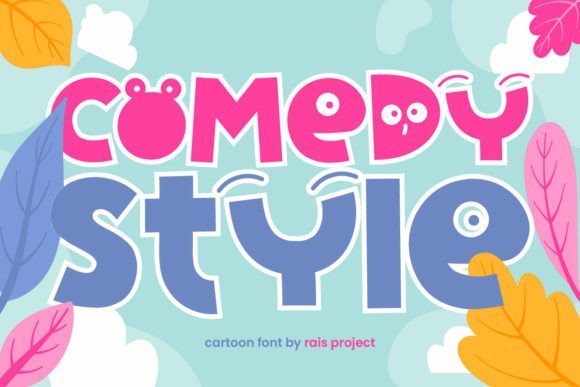
Laugh Your Way to Design Success
We’ve all been there – staring at a blank page, trying to come up with the perfect design concept. But then, something clicks, and a silly idea pops into your head. You start imagining a font that looks like it was created by a mischievous cartoon character, complete with winking eyes and goofy grins. That’s when you know you’re onto something special.
Introducing Comedy Style Font, a hilarious display font that brings a touch of whimsy to any design. With a unique character in each letter, this font is guaranteed to add a lighthearted and playful feel to your work. Whether you’re creating a comic strip, designing a greeting card, or developing a brand identity, Comedy Style Font is the perfect tool to inject some humor and personality into your designs.
Comedy Style Font Key Features
- Unique Characteristics: Features a playful, hand-drawn design with exaggerated characters, making it perfect for comedic and lighthearted content.
Comedy Style Font Review
I recently had the chance to work with the Comedy Style Font and I must say, it’s a unique addition to any design project. ✨ One thing that stands out is the playful, cartoon-like feel it brings to text. The font is perfect for adding a touch of humor or whimsy to headings, titles, or even entire articles.
- ✨ High contrast and bold lines create a striking visual effect
- ✨ The font is well-suited for informal or comedic content
- ✨ Great for use in advertising, social media, or entertainment-related projects
- ⚠️ The font may be too playful for more serious or formal content
- ⚠️ Some characters may be difficult to read in certain contexts (e.g. at small sizes or in dense text)
- ⚠️ The font may not be suitable for use in formal or professional settings
Overall, I think the Comedy Style Font is a fun and versatile addition to any designer’s toolkit. While it may have some limitations, it’s perfect for projects that require a lighthearted or humorous tone.